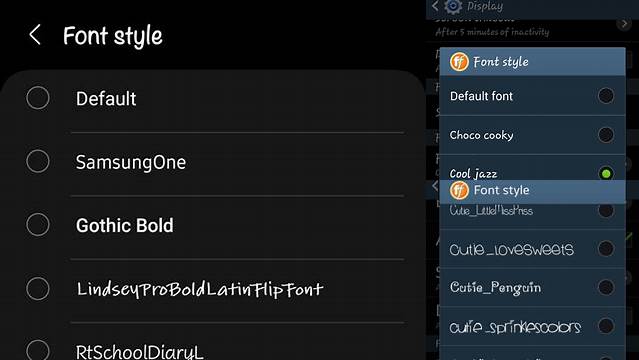
Free Fonts For Android Samsung: Best Downloads
Are you tired of the same old font on your Android Samsung device? Do you want to give your phone a fresh, new look without spending a dime? Well, you're in luck! This comprehensive guide will walk you through the best free fonts available for download on your Android Samsung device. We'll cover everything from where to find these fonts to how to install them, ensuring you can customize your phone to perfectly match your style. So, let's dive in and discover the amazing world of free fonts!
Why Change Your Font?
Before we get into the specifics, let's talk about why you might want to change your font in the first place. For starters, personalization is key. In today's world, we all want our devices to reflect our unique personalities. Changing your font is a simple yet effective way to achieve this. Whether you're into sleek and modern designs or prefer something more playful and whimsical, there's a font out there for you. Beyond aesthetics, readability is another crucial factor. The default font on your phone might not be the most comfortable for your eyes, especially if you spend long hours reading or writing on your device. A new font can improve readability and reduce eye strain, making your overall experience much more pleasant. Accessibility is also a significant consideration. Some fonts are specifically designed to be more accessible to users with visual impairments. By choosing the right font, you can make your device easier to use for yourself or others. So, whether you're looking to enhance your phone's appearance, improve readability, or increase accessibility, changing your font is a fantastic option.
Where to Find Free Fonts
Now that you're convinced about the benefits of changing your font, the next step is to find some great free options. Fortunately, there are several reliable sources where you can discover a wide variety of fonts without spending any money. The Google Play Store is an excellent place to start. Simply search for "free fonts for Android," and you'll find a plethora of apps offering font packs. These apps often include a preview feature, allowing you to see how the font will look on your device before you download it. Keep an eye out for apps with high ratings and positive reviews to ensure you're getting a quality product. Samsung also offers its own theme store, which often includes free fonts as part of its themes. Check out the Samsung Theme Store for exclusive fonts that are optimized for your device. Many independent websites and font foundries also offer free fonts for personal use. Websites like DaFont, FontSpace, and Creative Fabrica have extensive collections of free fonts that you can download and install on your Android device. When downloading fonts from third-party websites, always exercise caution and ensure the site is reputable to avoid downloading malware or viruses.
Top Free Font Recommendations
With so many fonts available, it can be overwhelming to choose the perfect one for your Android Samsung device. To help you narrow down your options, here are some of the top free font recommendations that are both stylish and functional. Roboto is a classic choice known for its clean and modern design. It's highly readable and works well for both body text and headings. Open Sans is another popular option that offers excellent readability and a friendly appearance. It's a versatile font that can be used for a wide range of purposes. Lato is a sleek and elegant font that adds a touch of sophistication to your device. It's perfect for those who want a font that's both stylish and easy to read. Montserrat is a geometric sans-serif font that's perfect for creating a modern and minimalist look. It's a great choice for headings and titles. Raleway is a stylish font with a unique character. It's perfect for adding a touch of personality to your device. These are just a few of the many great free fonts available for Android Samsung devices. Take some time to explore different options and find the one that best suits your style and needs.
Changing the font on your Android Samsung device is a fantastic way to personalize your phone and enhance your overall experience. With so many free fonts available, you can easily find one that matches your style and needs. Whether you're looking to improve readability, add a touch of personality, or simply refresh your phone's appearance, a new font can make a big difference. Just remember to download fonts from reputable sources, follow the installation instructions carefully, and consider safety and legal aspects. So go ahead, explore the world of free fonts and give your Android Samsung device a fresh, new look today! Guys, you'll have a lot of fun customizing it and making it your own. Good luck, and happy font hunting!